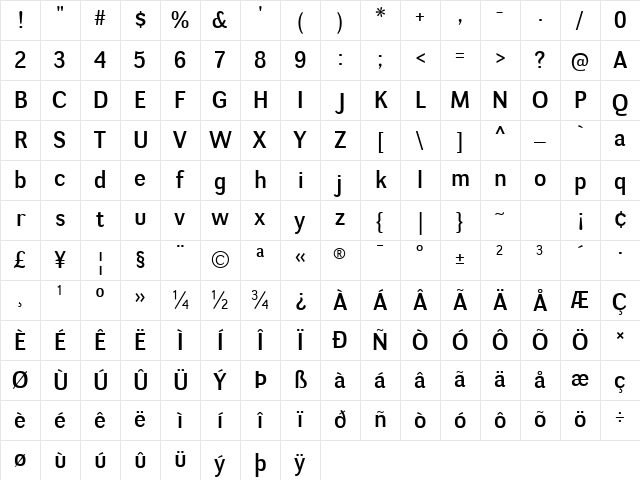
Design Context for Negotiate
Negotiate is a composed and adaptable typeface that performs quietly and consistently across a wide range of design contexts.
Pro Tip: Use Negotiate in both headline and body roles to test its range before committing to a single application.